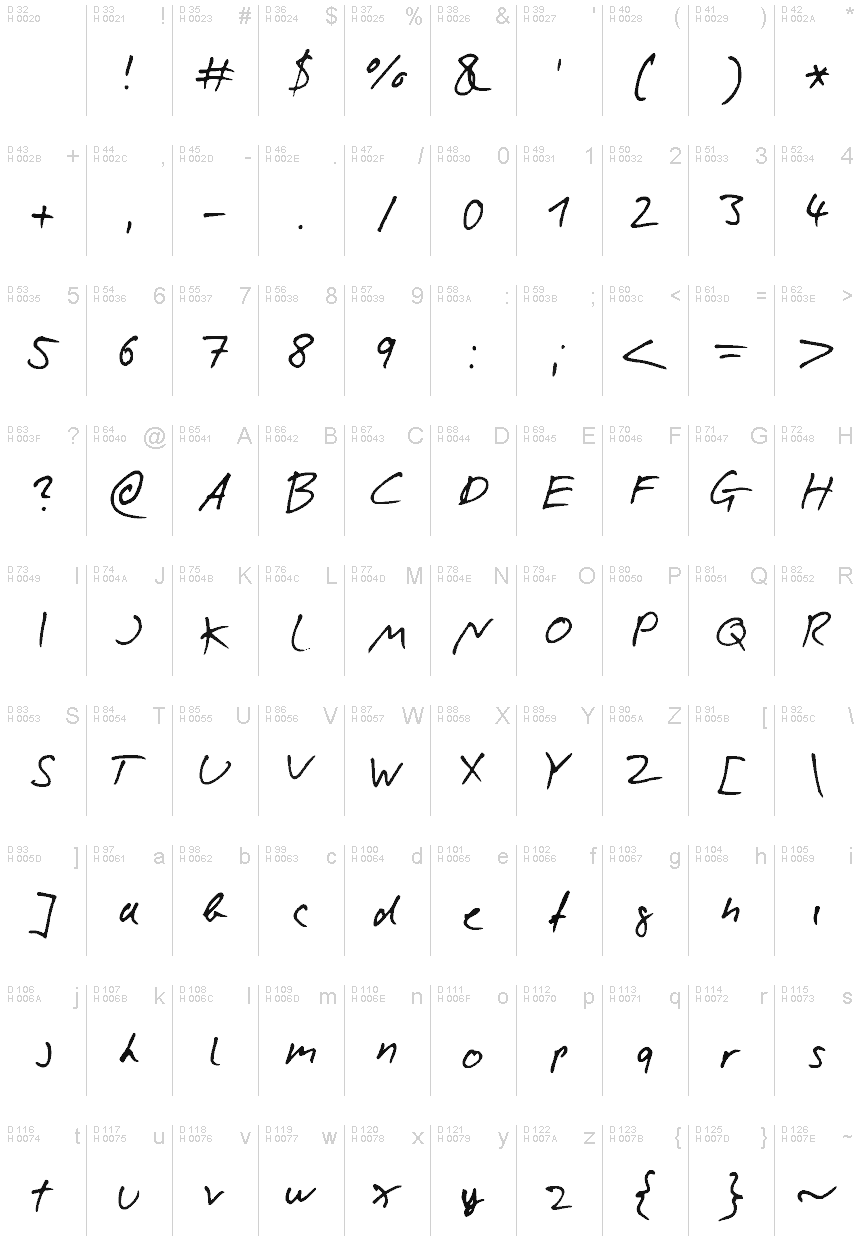
Nicolas
Nicolas is a captivating handwritten font designed by its namesake, Nicolas Rose. Its light, fluid strokes convey a sense of effortless elegance, lending a touch of sophistication to any project. The organic, expressive quality of the letters invites the reader to engage with the text, making it an ideal choice for editorial pieces, stationery, and branding applications that seek to cultivate a personal, handcrafted aesthetic.
Nicolas' versatility extends beyond print, as its natural charm also translates seamlessly to digital interfaces, allowing designers to infuse their digital creations with a warm, human touch.